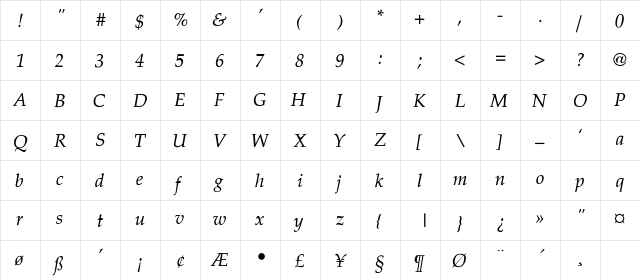
Palatino-Thin-Italic Regular Font Preview
Palatino-Thin-Italic Regular
Design Context for Palatino-Thin-Italic Typeface
Palatino-Thin-Italic offers clean, dependable letterforms without strong stylistic allegiance, making it a practical choice for designers who need flexibility. The slanted form adds forward momentum and visual energy. Its slender proportions lend an understated elegance to any composition.
Pro Tip: Use Palatino-Thin-Italic for emphasis, pull quotes, and subheadings where its slanted energy can add rhythm to the layout.